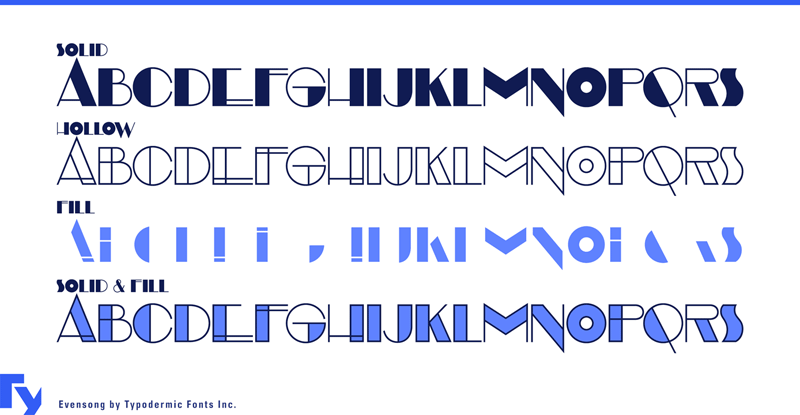
Font name: | Evensong |
Evensong is a geometric deco typeface. You can use the Solid and Hollow styles on their own or a layers of Solid and Fill. Evensong supports Greek, Vietnamese, Cyrillic, Pan-Nigerian and most Latin based languages. The desktop license for Evensong Hollow is free. If you'd like to embed this font in an app, ebook, on the web or anything that's not covered by the desktop license agreement, visit the link below. You'll find distributors who offer different types of licenses or you can contact me for help. http://typodermicfonts.com/evensong/ This free font is part of a larger font family. Check out the rest of the family through the link above. |